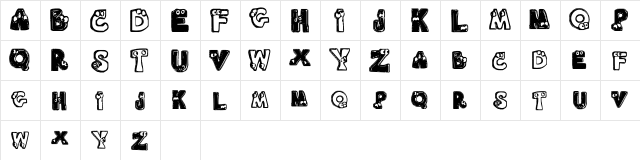
Ryp childA Decorative
| Style | Decorative |
Design Context for Ryp childA Typeface
Ryp childA trades formality for fun, with bouncy, characterful letterforms that bring warmth and energy to any project.
Font Pairing: Pairs well with a rounded or humanist sans for body copy, maintaining the friendly tone without relying on Ryp childA to carry extended reading.
Pro Tip: Avoid using Ryp childA for long passages of text — it works best for headlines, labels, and short calls to action.